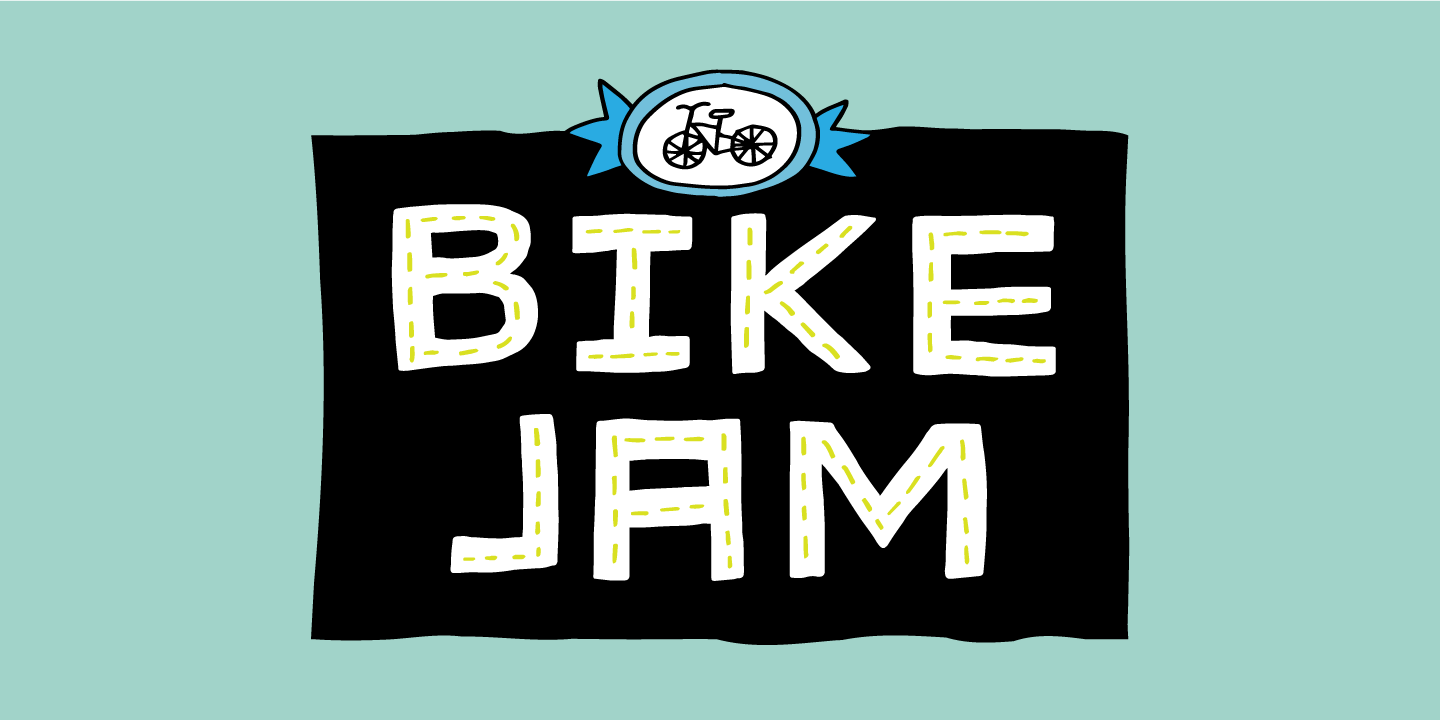
The Bike Jam Font excels in various design applications including dynamic cycling event branding, mountain bike shop signage, energetic bike race promotions, adventurous bicycle tour marketing, active cycling club communications, extreme sports festival materials, bike messenger service identities, cycling gear packaging, outdoor adventure event signage, and spirited recreational projects that demand cycling energy and athletic sophistication.
What makes the Bike Jam Font exciting is its dynamic embodiment of cycling energy and two-wheeled adventure through letterforms that capture the essence of fast-paced bike riding and the exhilarating freedom of cycling culture. This typeface demonstrates exceptional movement through carefully crafted characters that suggest the swift motion of spinning wheels, the rhythmic cadence of pedaling, and the energetic spirit that defines passionate cycling communities and bike culture enthusiasm. The font's cycling personality makes it perfect for bike shops and cycling organizations seeking to communicate athletic energy, adventure spirit, and the kind of dynamic momentum that inspires people to embrace cycling through typography that literally rolls with bike-powered enthusiasm.
The Bike Jam Font family typically includes energetic weight variations that enhance the cycling aesthetic, featuring dynamic styling options and extended character sets optimized for sports marketing and cycling communications. These family options often include bike-inspired alternates, cycling symbols, and adventure decorative elements that provide designers with comprehensive tools for creating authentically cycling typography that celebrates bike culture while maintaining contemporary design appeal and athletic credibility.
Cycling professionals and outdoor adventure brands consistently choose Bike Jam Font Free Download for projects requiring typography that communicates cycling authenticity and athletic energy. This typeface delivers exceptional performance in cycling marketing, sports branding, and adventure communications where establishing credibility and inspiring active participation is essential for cycling community engagement. The font's bike character makes it particularly effective for racing and mountain biking applications. Download Bike Jam Font Free Download today to access this energetic typeface that transforms cycling communications with its dynamic energy and athletic sophistication, creating compelling adventure experiences that celebrate the magnificent freedom of cycling while inspiring the kind of active lifestyle that makes bike culture so irresistibly appealing and genuinely empowering.